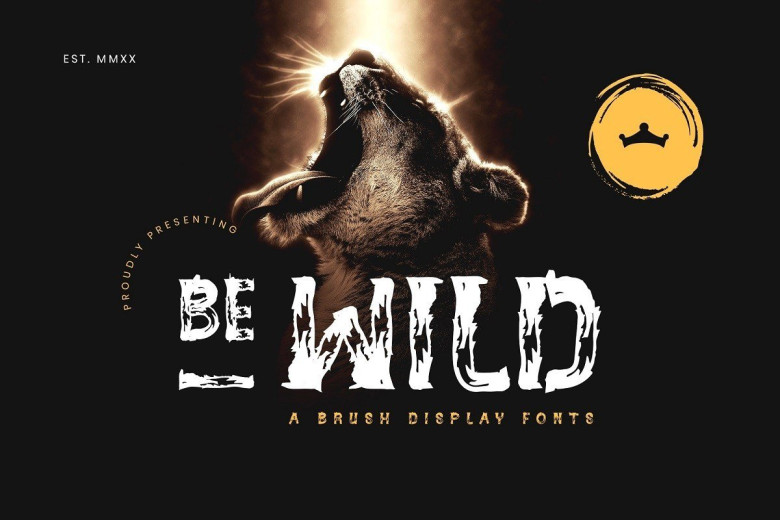
BE-WILD Brush Display Font
Introducing  BE-WILD Brush Display Font is a street-wise brush font bursting, BE-WILD font is ideal for logos, apparel,T-shirt,Hoodie, quotes, product packaging, or anything which needs a typographic turbo-boost. With extra attention to quick strokes and sharp details.